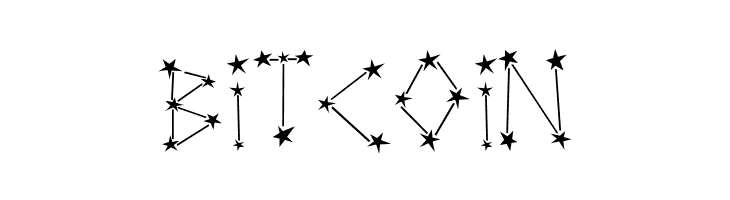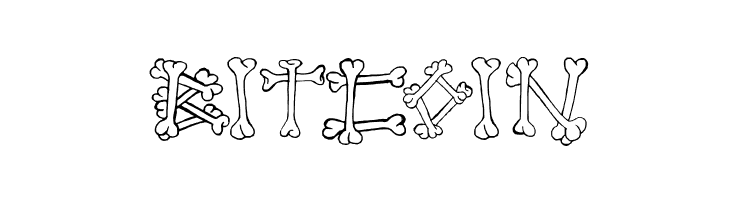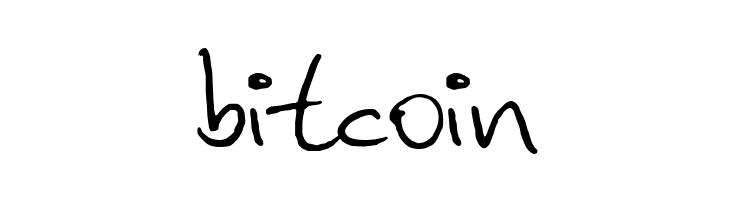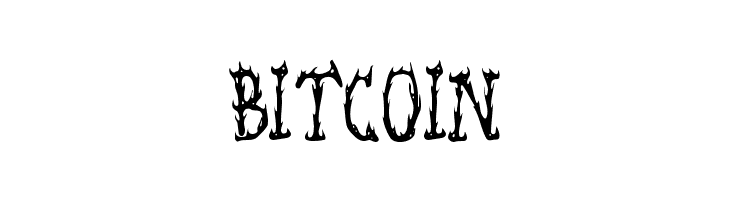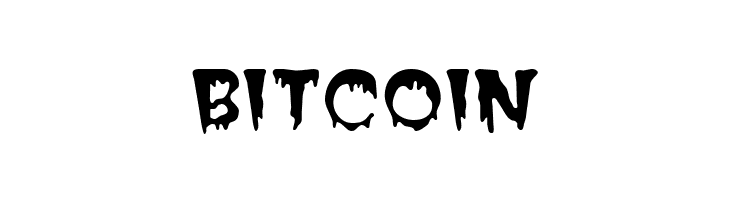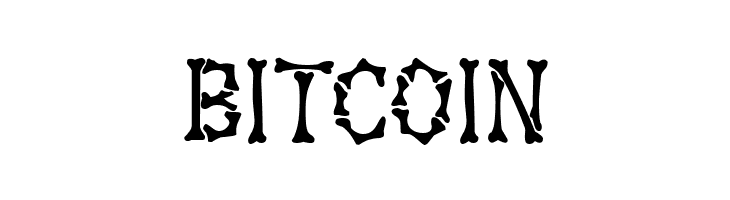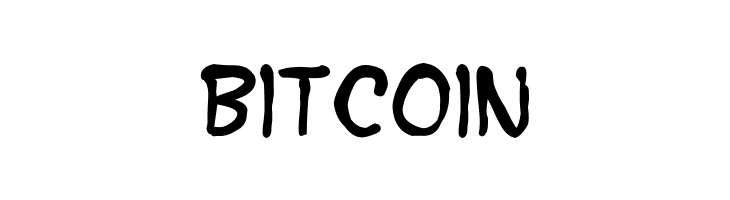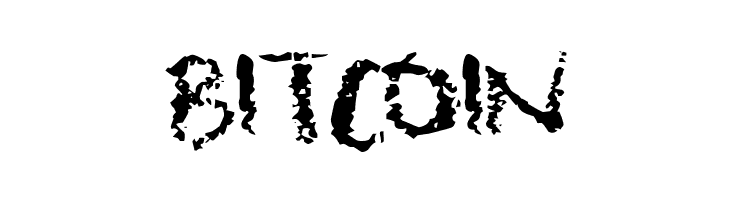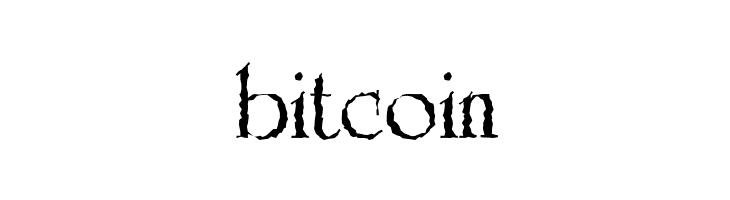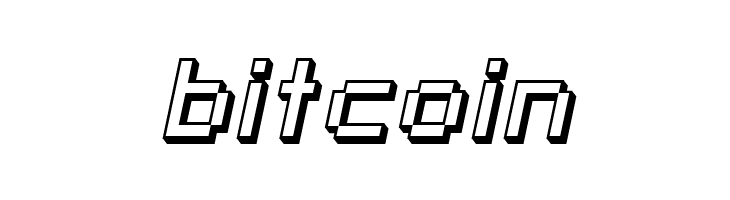
A bold, italic, handwritten font with a playful, scribbled style.
A casual, handwritten font with a playful and dynamic style.
A lively and expressive handwritten font with fluid, cursive strokes.
A raw, edgy, hand-drawn style with jagged, uneven strokes.
A distressed, grungy font with a textured, weathered appearance.
A fiery, dynamic font with jagged, flame-like edges.
A playful, hand-drawn style font with bold, irregular strokes perfect for comic or casual designs.
A bold, distressed font resembling lipstick smudges, perfect for dramatic and playful designs.
A pixelated, shaded, oblique font with a retro video game style.
A textured, playful font with a frothy, liquid-like appearance.
A glitch-inspired font with bold, distorted characters and a digital aesthetic.
A casual, handwritten font with a personal and informal style.
A pixelated, geometric font reminiscent of retro digital displays.
A lively and flowing script font with elegant, sweeping curves.
A bold, cursive font with a playful and energetic style.
A bold, handwritten font with a casual and playful style.
A flowing, cursive script font with elegant, calligraphic strokes.
A flowing, cursive script font with elegant, connected strokes and an italic style.